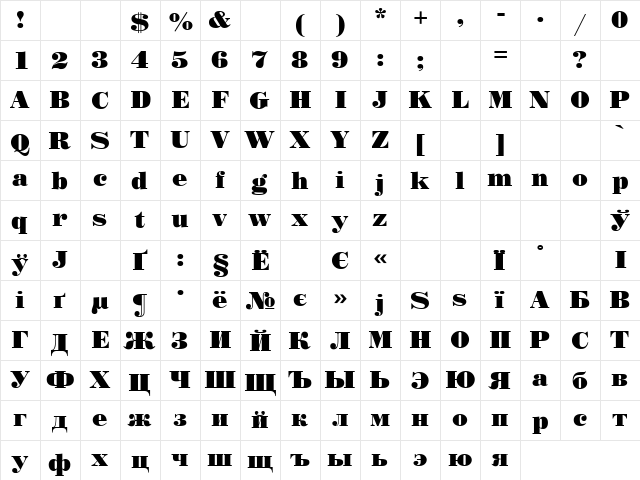
StandardPosterC Regular
Design Context for StandardPosterC Typeface
StandardPosterC takes a measured approach to typography — its balanced proportions and neutral character make it a reliable workhorse for both digital and print work.